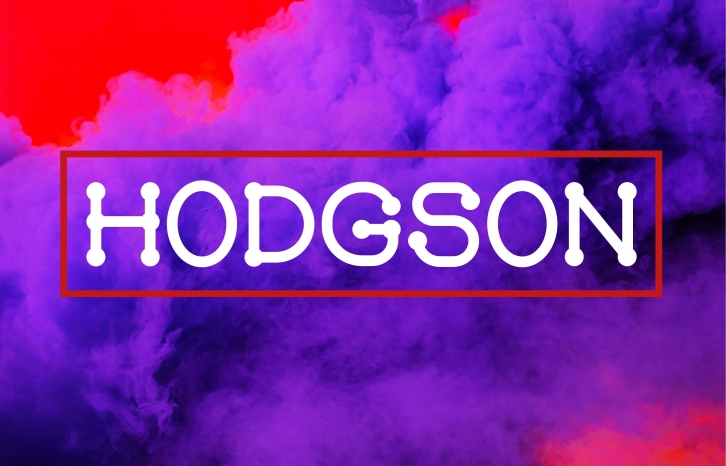
Hodgson is a strong font marked by dots in the edges and borders of the letters. Its letters are clear and can be distinguished quickly. The shapes are simple and so are the curves. It’s a modern font that’s easy to read but has a strong presence on display.